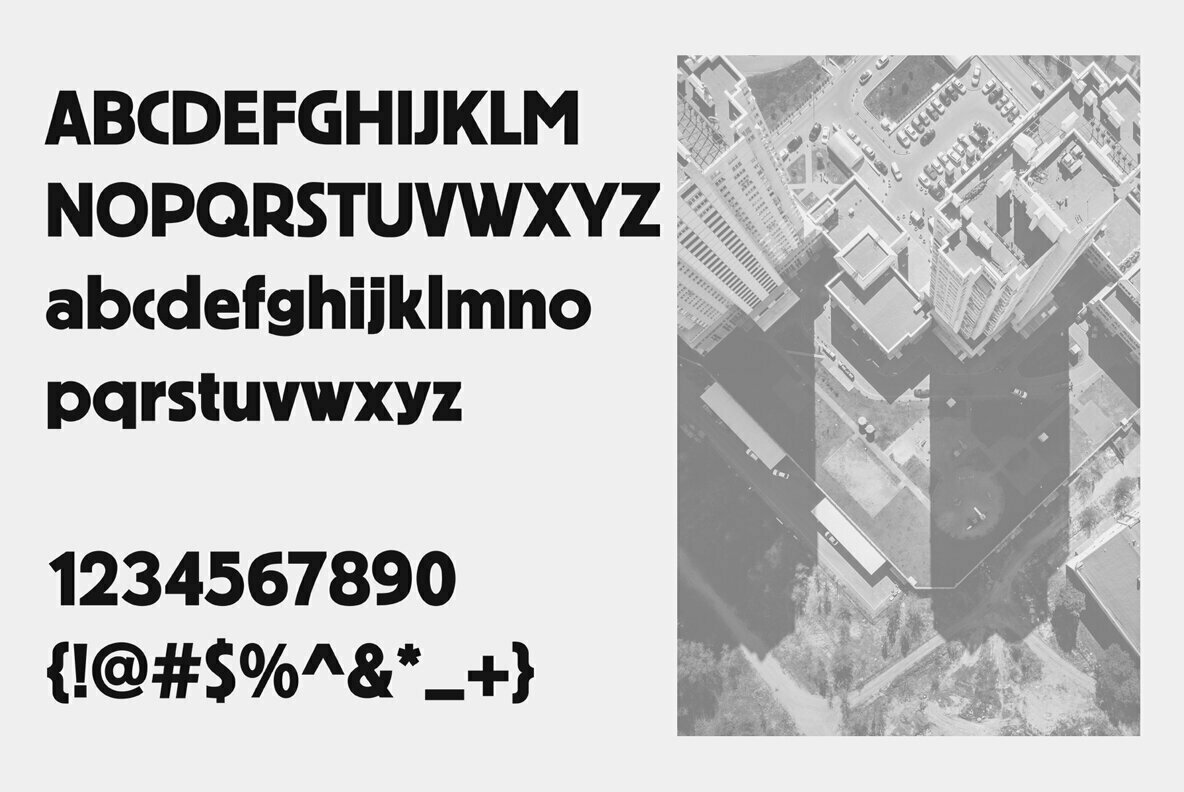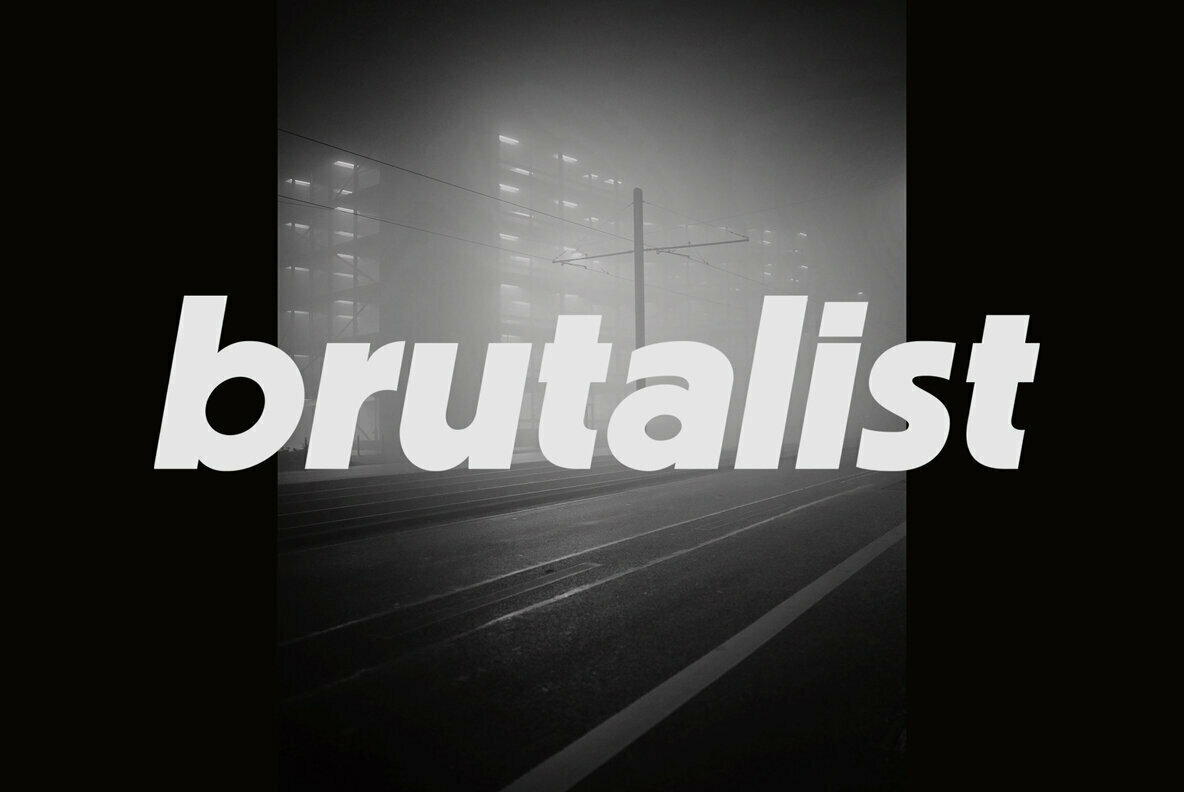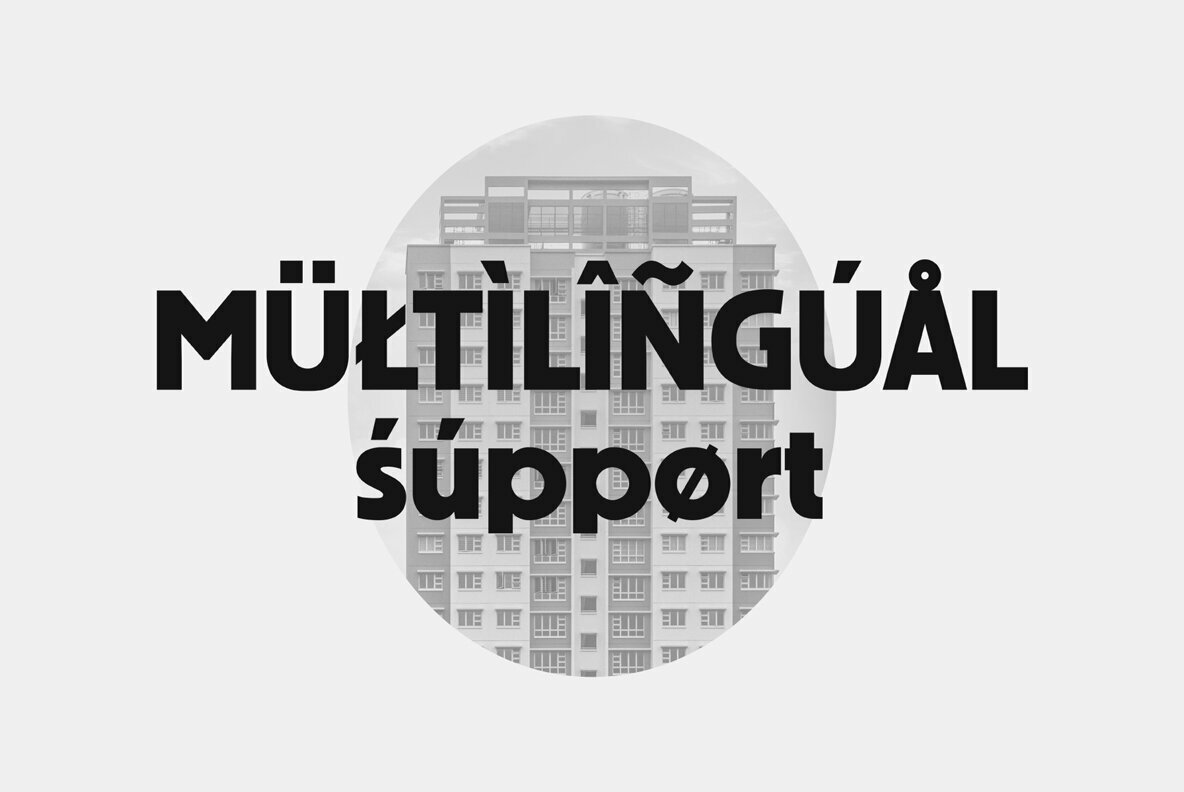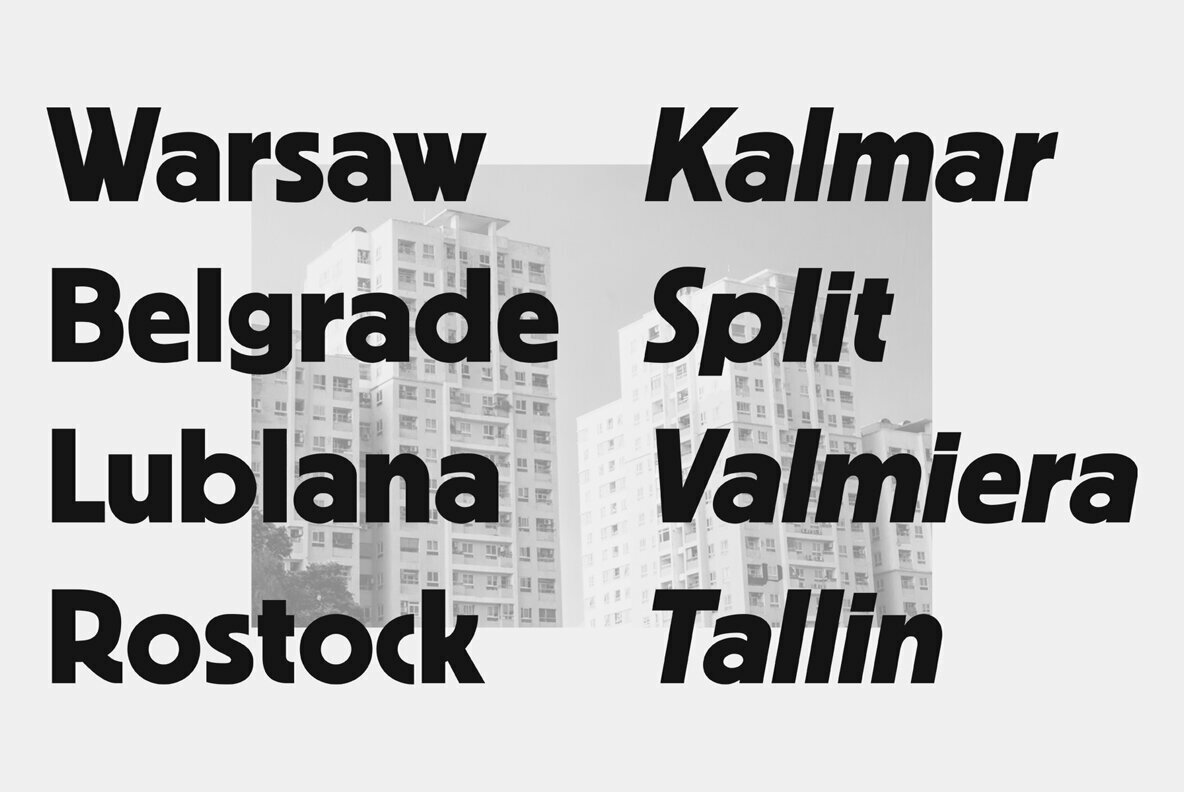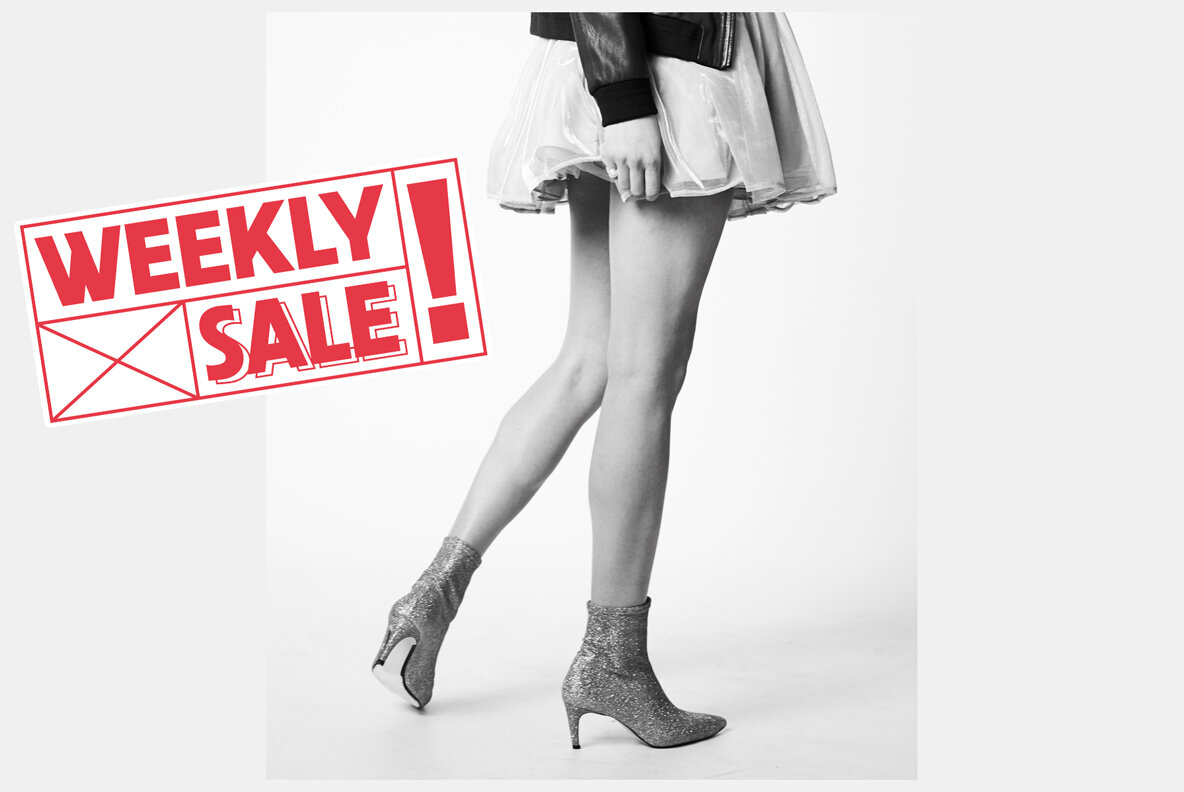
Blokhaus Font
Blokhaus, a bold sans serif font inspired by the iconic styles of classic sans fonts, draws its essence from the stark and uncompromising architecture of the 70s era. This typeface perfectly captures the raw elegance of brutalism, offering a unique visual narrative that stands out in typographic design. Featuring exceptional versatility, Blokhaus is ideal for enhancing readability in text, creating impactful headers, and shaping memorable brands across digital and print media. Its ability to adapt seamlessly to various design contexts makes it a valuable asset for graphic designers seeking a distinct aesthetic. Features:Blokhaus: A Bold Tribute to Brutalism